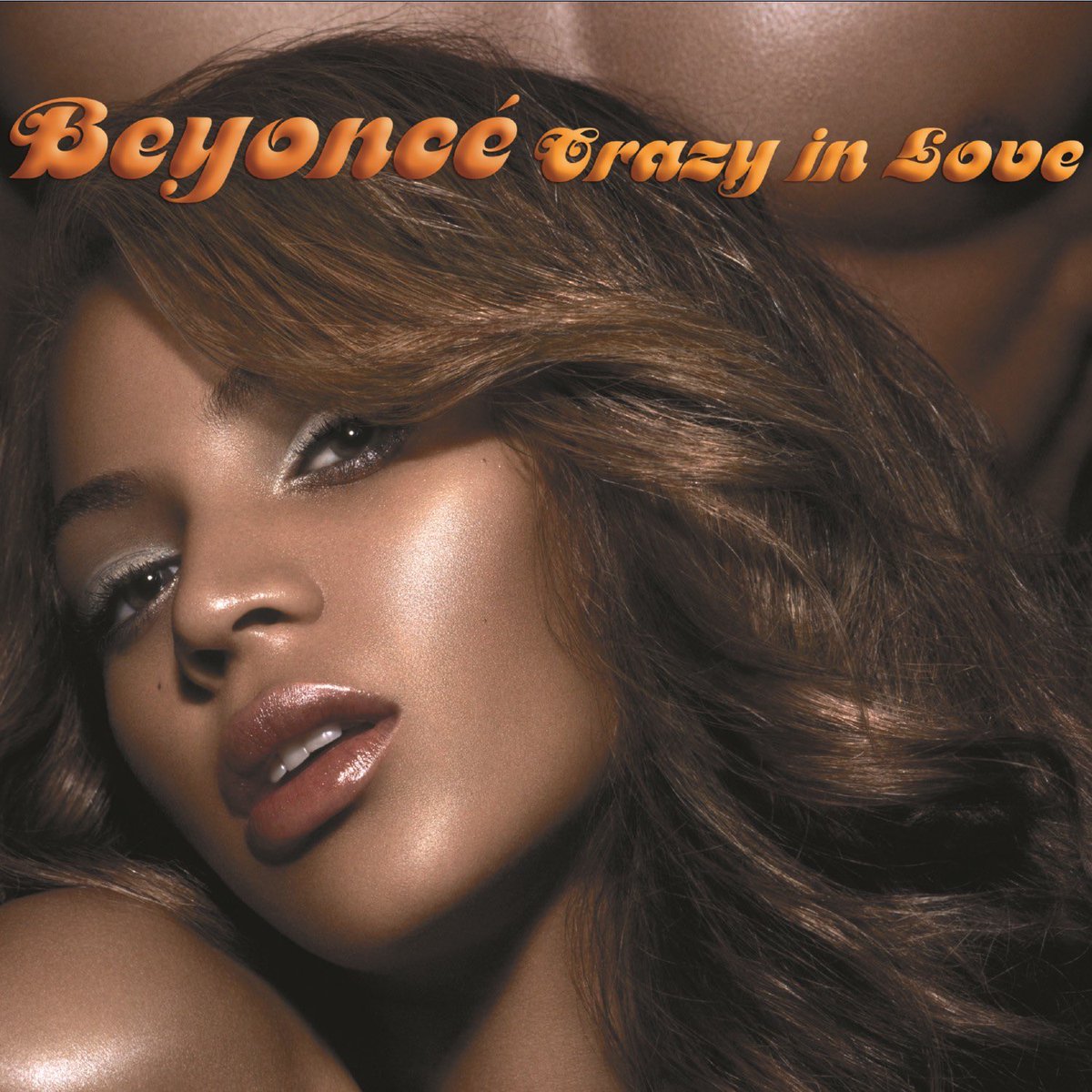
Crazy in Love Font
Fonts in Use“Crazy in Love” is a single and the lead track of Beyoncé's debut solo studio album "Dangerously in Love" released in 2003. The album features a mix of R&B, hip hop, and soulful ballads, and was a commercial and critical success, earning Beyoncé five Grammy Awards.
The song and artist names are in bold script Motter Femina font, designed by Othmar Motter in 1973 and digitized by URW and motter fonts. URW's version used for the cover art has distinct "t" and "r" letterforms.